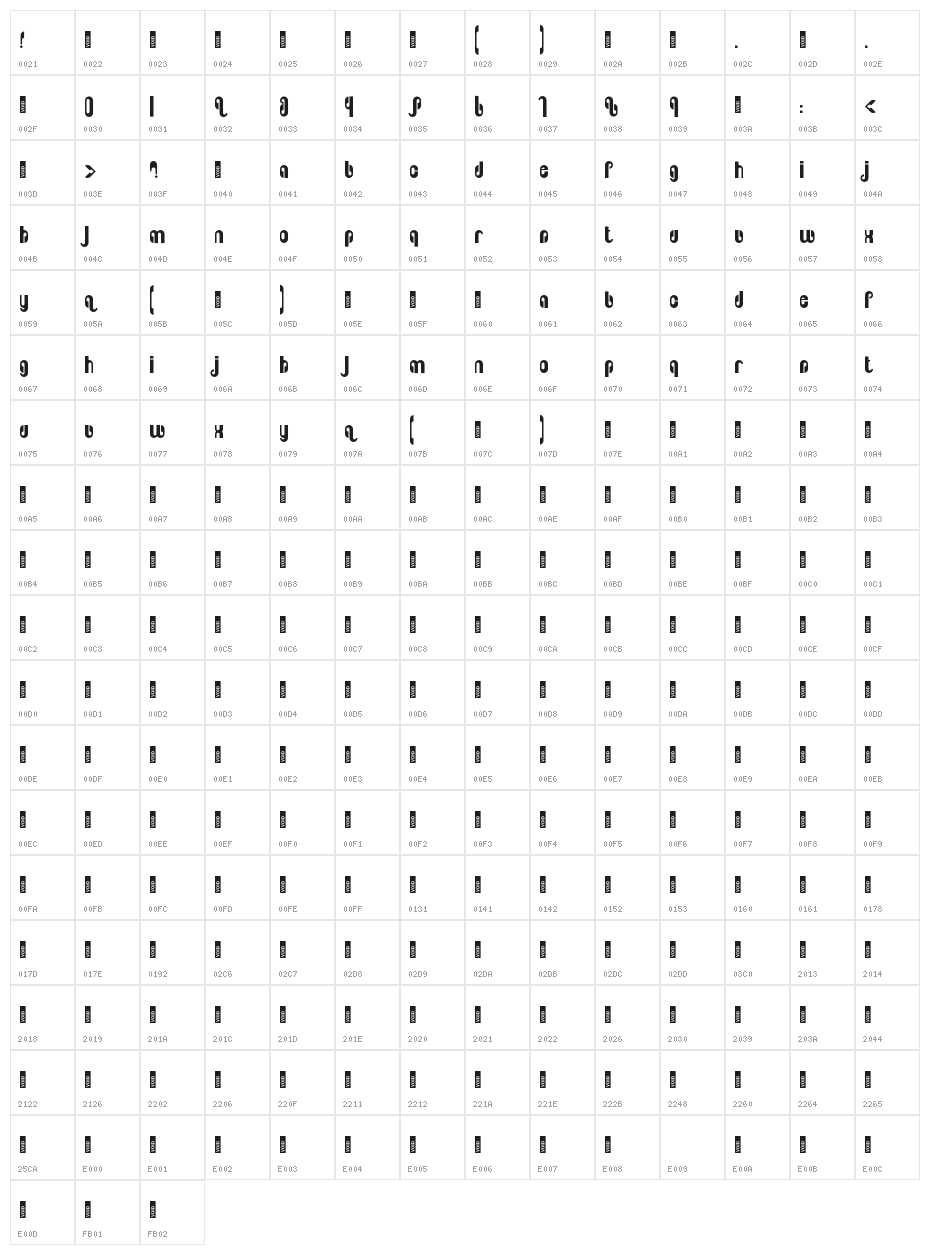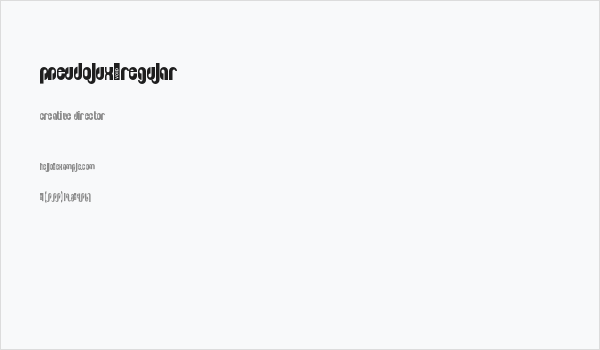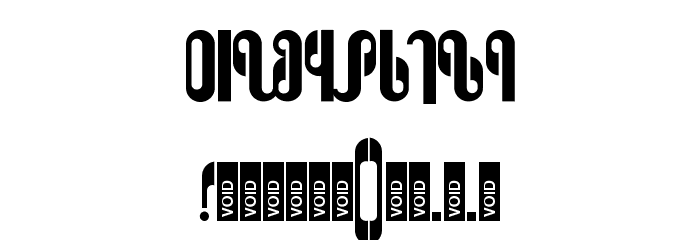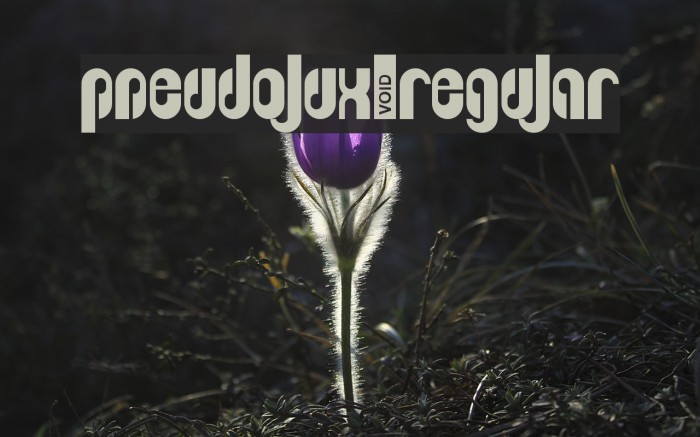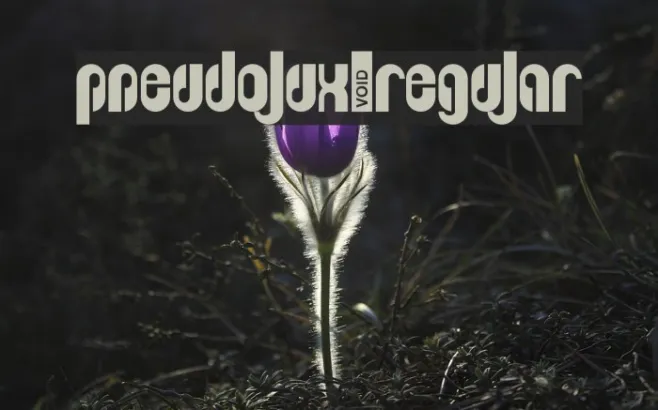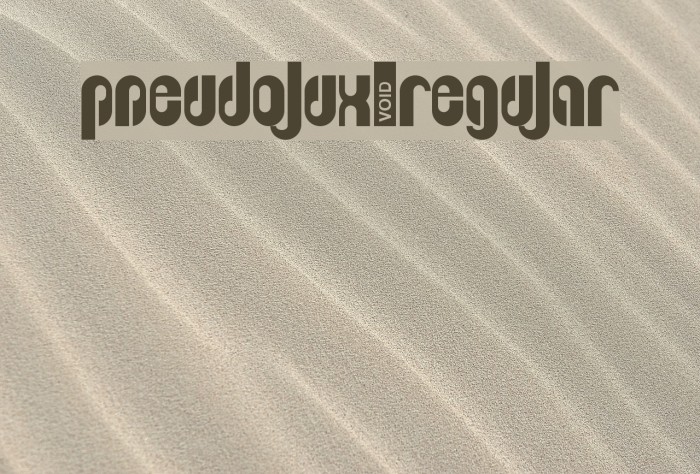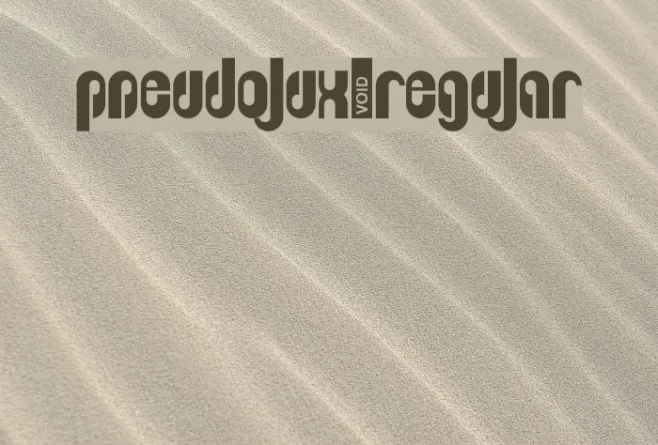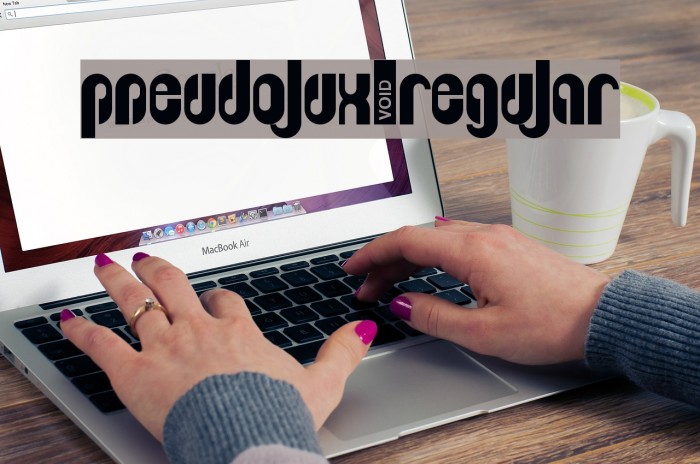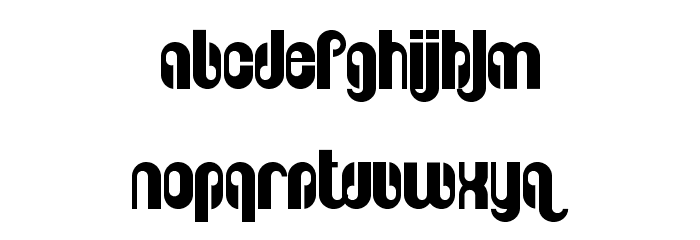
Pseudolux-Regular Font
Pseudolux-Regular Description
This font features a bold and modern design with a unique, futuristic aesthetic. The characters are rounded with a consistent stroke width, giving it a sleek and cohesive look. The uppercase and lowercase letters share a similar structure, enhancing uniformity. The numerals and special characters maintain the same stylistic approach, ensuring a harmonious appearance across all glyphs. Its distinctive style makes it stand out, with a focus on geometric shapes and smooth curves. The font's design is both eye-catching and versatile, suitable for various creative applications.
| Proposed Projects | Ideal for branding, digital media, posters, and futuristic-themed projects. |